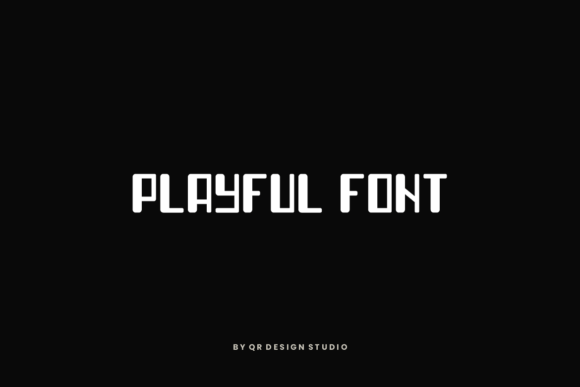
Introducing Garboy Font: The Bold and Assertive Sans Serif Font
When it comes to typography, the right font can make all the difference in the success of a design project. A font that can convey the right tone, style, and personality is essential for creating a lasting impression. If you’re looking for a font that can elevate your creations and make a statement, look no further than Garboy Font. In this article, we’ll explore the features and benefits of Garboy, a bold and assertive sans serif font that is sure to become an incredible asset to your font library.
What is Garboy Font?
Garboy Font is a sans serif font designed to make a bold statement. Its clean lines, geometric shapes, and confident style make it perfect for a wide range of design projects. Whether you’re working on a branding project, a website, or a print design, Garboy Font is sure to grab attention and leave a lasting impression.
One of the key features of Garboy Font is its versatility. It can be used for both digital and print projects, and its bold style makes it perfect for headlines, titles, and other display text. However, it’s also legible enough to be used for body text, making it a great all-around font for any design project.
Benefits of Using Garboy Font
So why choose Garboy Font for your design projects? Here are just a few benefits of using this bold and assertive sans serif font:
- Versatility: As mentioned earlier, Garboy Font is versatile and can be used for a wide range of design projects, from digital to print.
- Legibility: Despite its bold style, Garboy Font is highly legible, making it perfect for both headlines and body text.
- Confidence: Garboy Font exudes confidence and assertiveness, making it perfect for brands and designers who want to make a statement.
- Uniqueness: Garboy Font has a unique style that sets it apart from other sans serif fonts, making it a great choice for designers who want to stand out from the crowd.
How to Use Garboy Font
Garboy Font can be used in a variety of design projects, including:
- Branding: Use Garboy Font as a logo font or as a font for your brand’s marketing materials to create a bold and assertive brand identity.
- Web Design: Use Garboy Font as a display font for your website’s headlines and titles to grab attention and make a statement.
- Print Design: Use Garboy Font for print projects such as brochures, flyers, and posters to create eye-catching headlines and titles.
When using Garboy Font, it’s essential to consider the tone and style of your design project. For example, if you’re working on a branding project for a luxury brand, you may want to use Garboy Font in a more subtle way, such as for headlines and titles. On the other hand, if you’re working on a design project for a more playful brand, you may want to use Garboy Font in a more bold and creative way.
Pairing Garboy Font with Other Fonts
When pairing Garboy Font with other fonts, it’s essential to choose fonts that complement its bold and assertive style. Here are a few font pairing suggestions:
- Montserrat: Montserrat is a clean and modern sans serif font that pairs well with Garboy Font.
- Lato: Lato is a clean and elegant sans serif font that pairs well with Garboy Font.
- Merriweather: Merriweather is a classic serif font that pairs well with Garboy Font for a bold and elegant look.
In conclusion, Garboy Font is a bold and assertive sans serif font that is sure to elevate any design project. Its versatility, legibility, confidence, and uniqueness make it a great choice for designers who want to make a statement. Whether you’re working on a branding project, a website, or a print design, Garboy Font is sure to grab attention and leave a lasting impression.